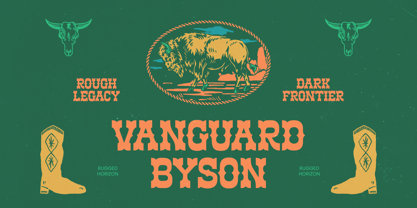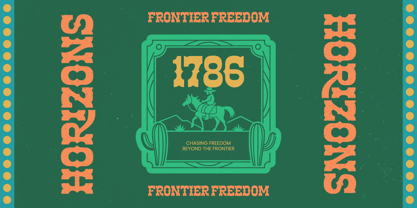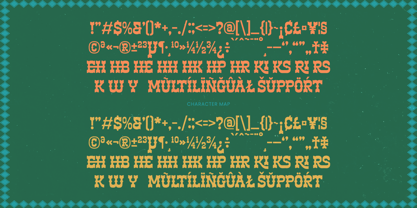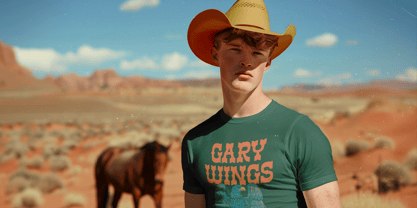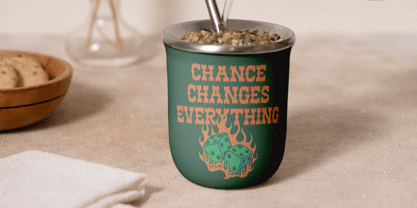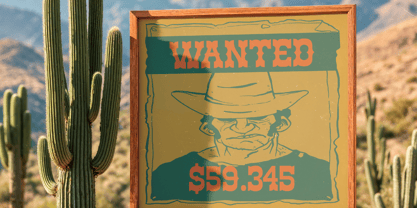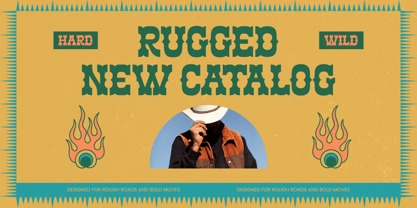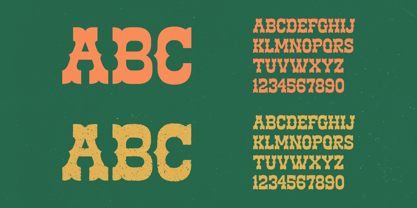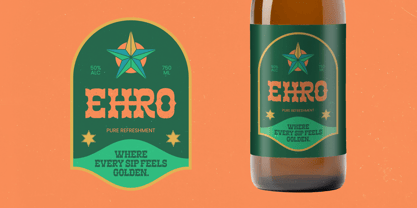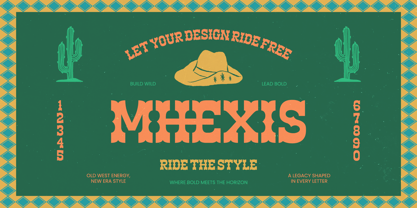
Mhexis
Die Schriftfamilie Mhexis wurde von Heru Utama Putra entworfen und von Timelesstype Studio veröffentlicht. Mhexis enthält 2 Stile und Familienpaketoptionen. Mehr über diese Familie
Redefine the spirit of the frontier with a typeface that captures the raw essence of classic Americana and adventurous design. Mhexis - Western Vintage Display is a commanding display font that combines a rugged aesthetic with vintage charm, making it an essential tool for designers seeking a bold presence. Its thick, slab-like strokes and sharp decorative accents evoke the feeling of the Old West while maintaining a clean, professional finish.